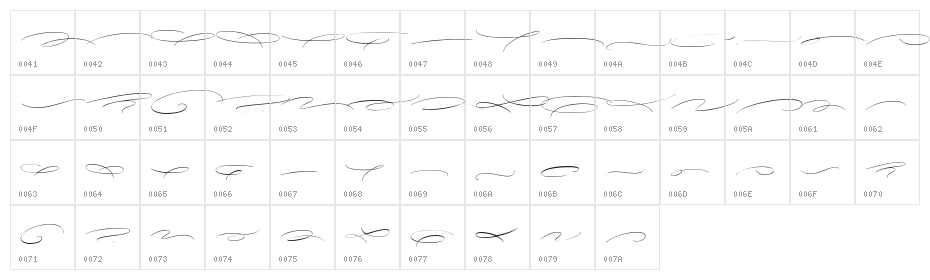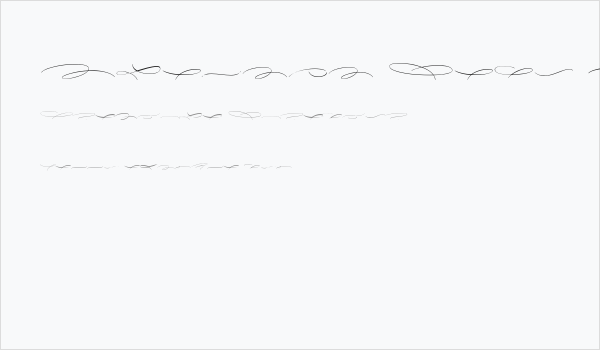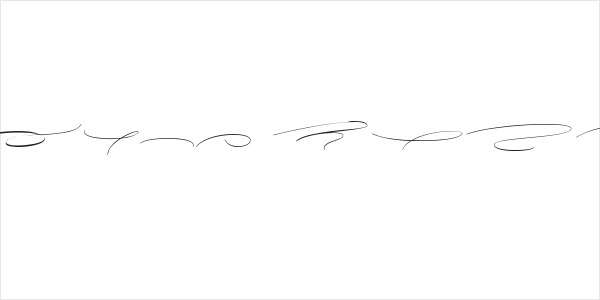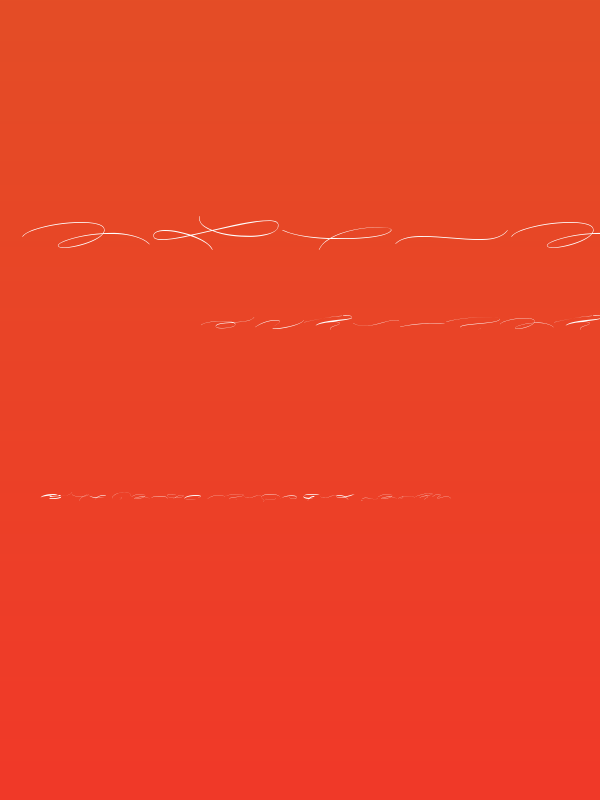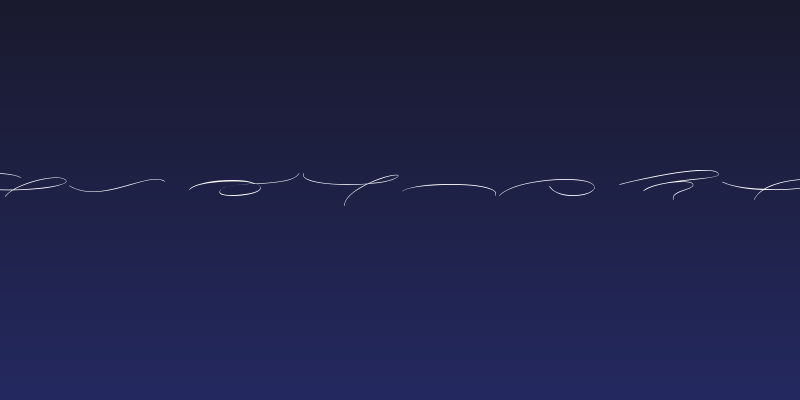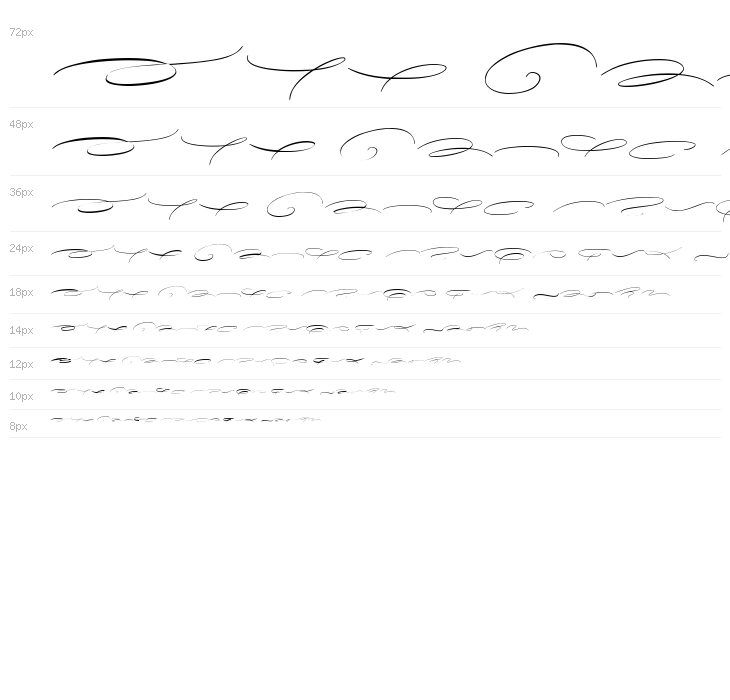
Avelana Deco Thin PERSONAL USE Font
Avelana Deco Thin PERSONAL USE Description
This font is an elegant and highly decorative script style, characterized by its thin, flowing lines and intricate swirls. Each character is designed with a sense of fluidity and grace, making it appear almost like a piece of art. The uppercase letters are particularly ornate, with extended loops and flourishes that give them a sophisticated and luxurious feel. The lowercase letters maintain the same level of detail, ensuring consistency throughout the typeface. This font is perfect for projects that require a touch of elegance and refinement, such as wedding invitations, luxury branding, or high-end product packaging. Its delicate nature suggests a careful and intentional use, as it may not be suitable for small sizes or body text due to its intricate details.
| Use Case | Logos, Invitations, Decorative headings |
| Proposed Projects | Ideal for wedding invitations, luxury branding, and high-end product packaging. |